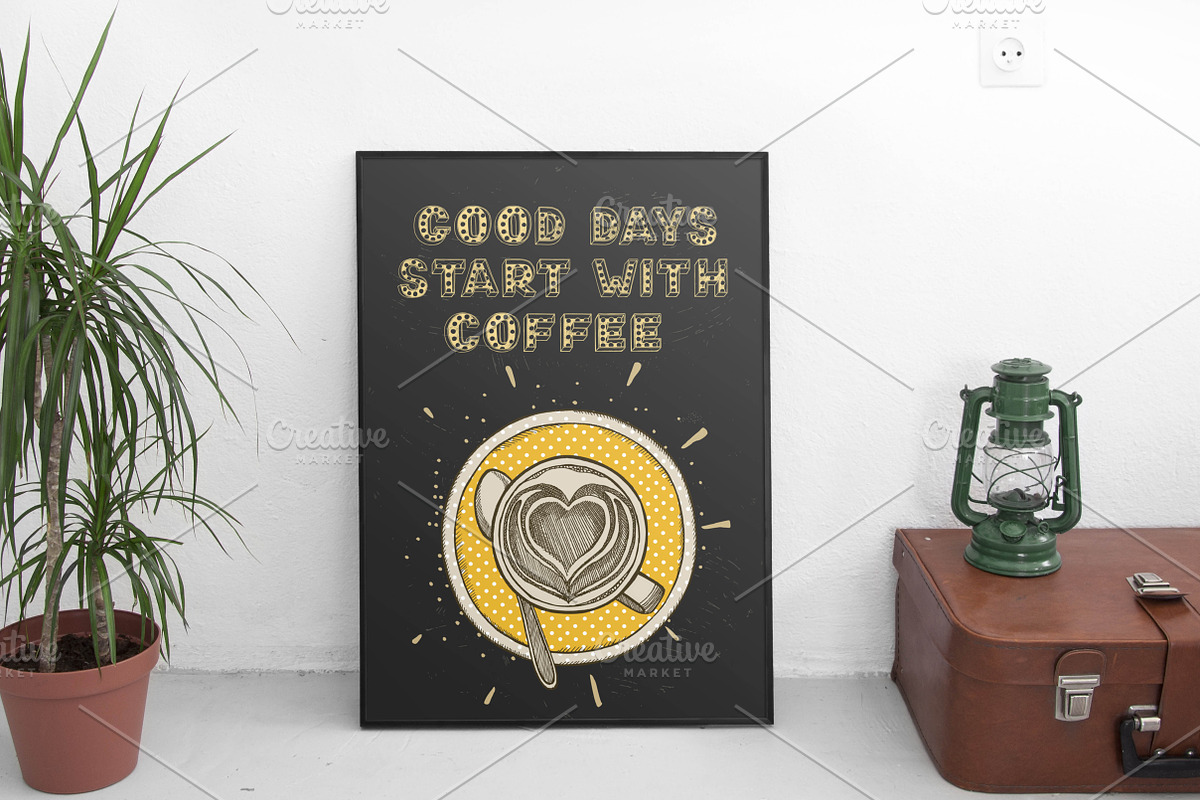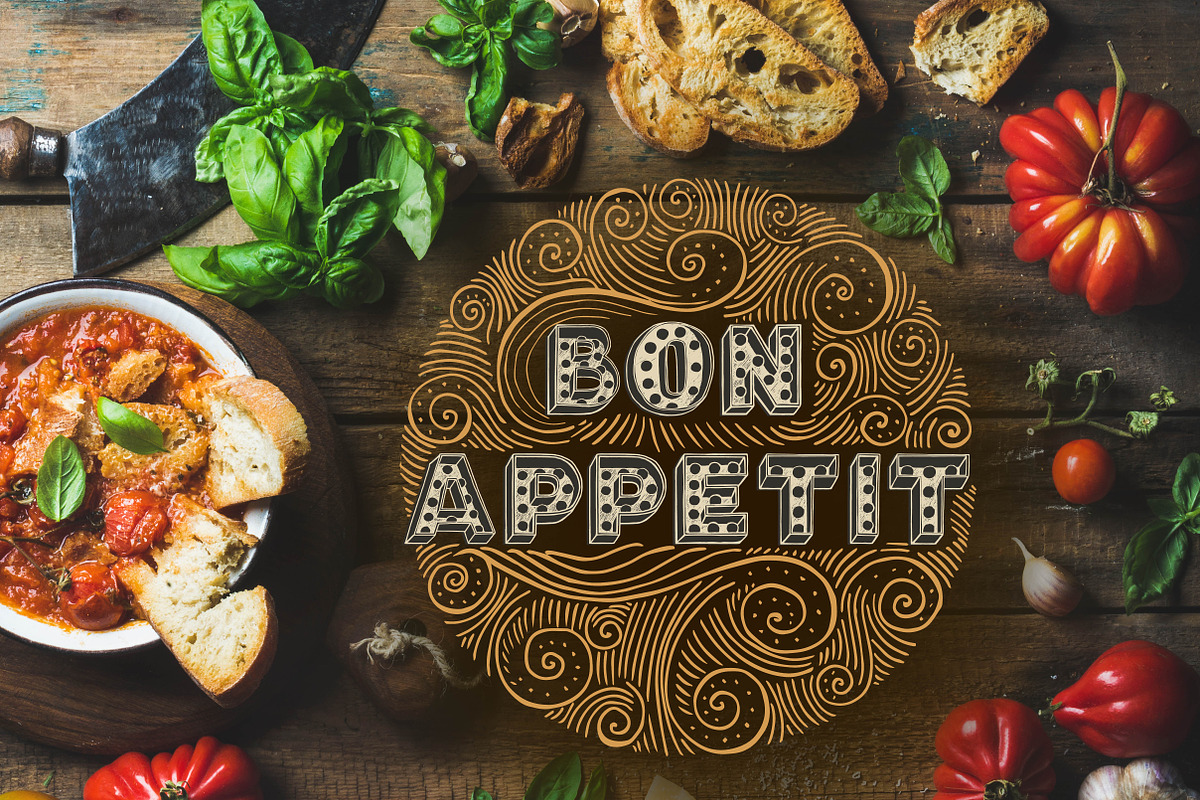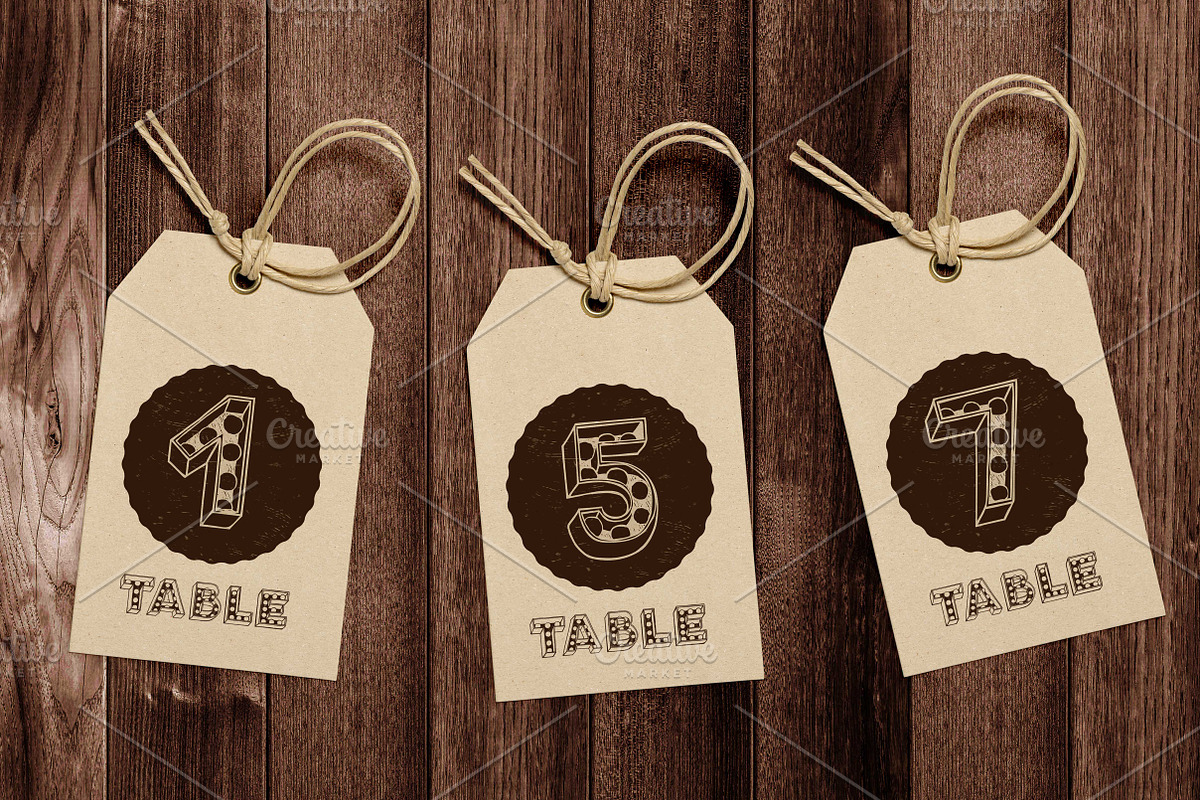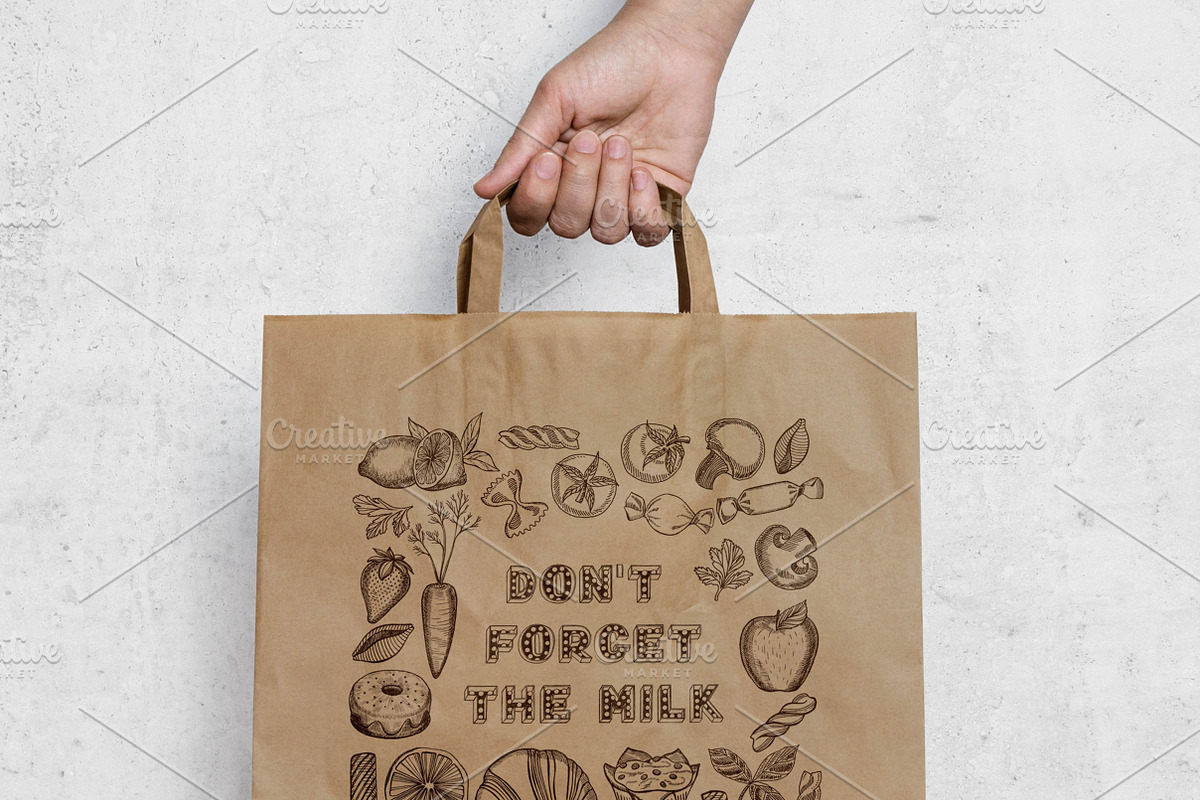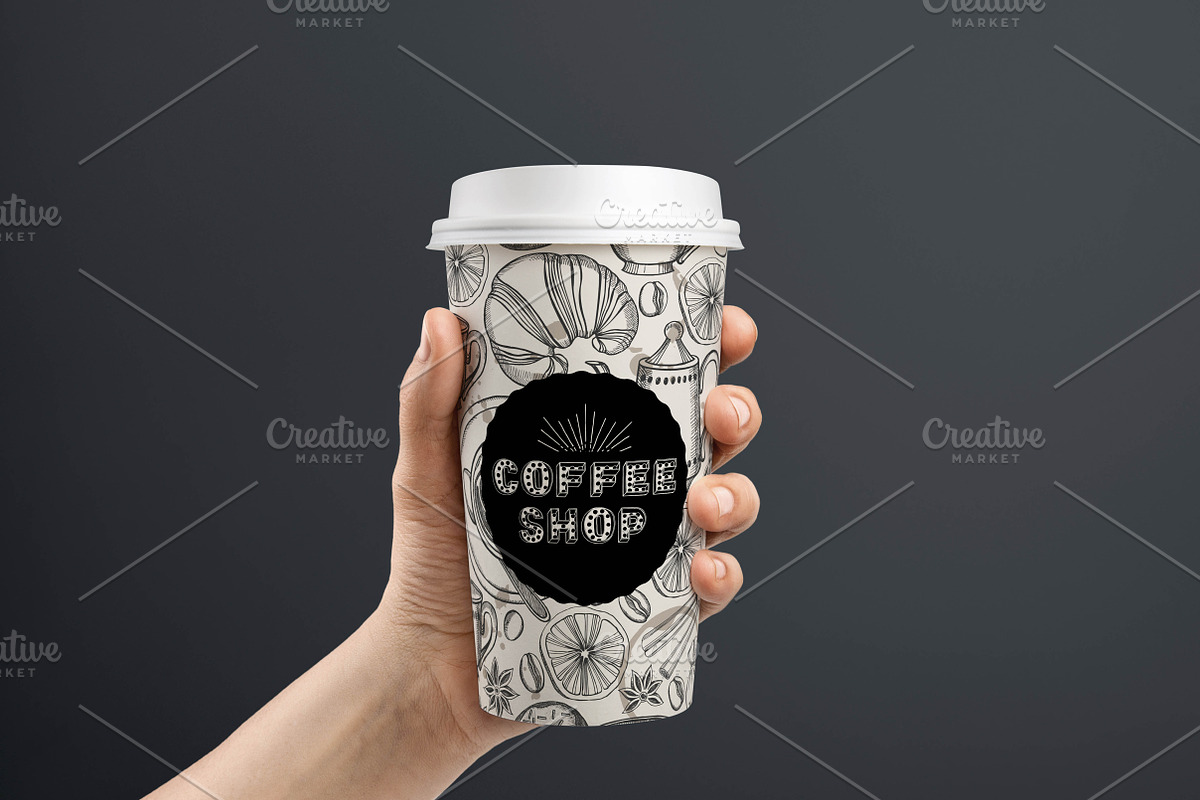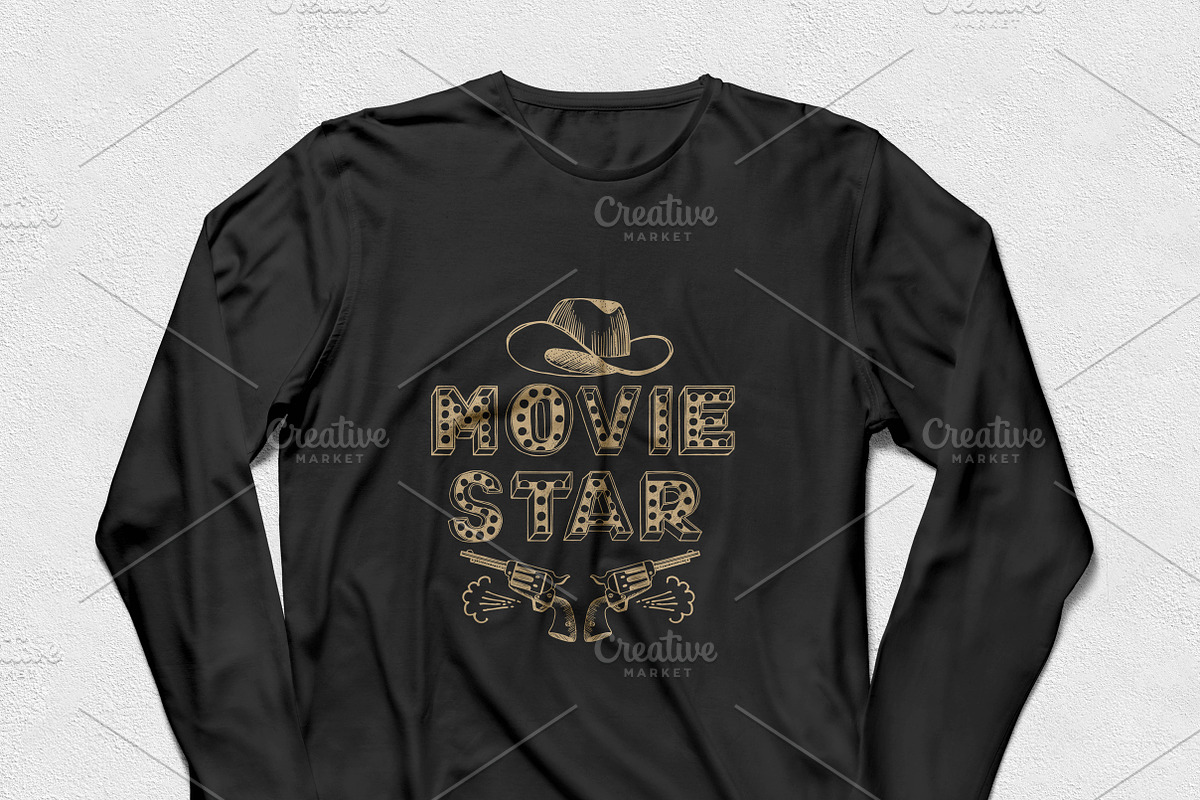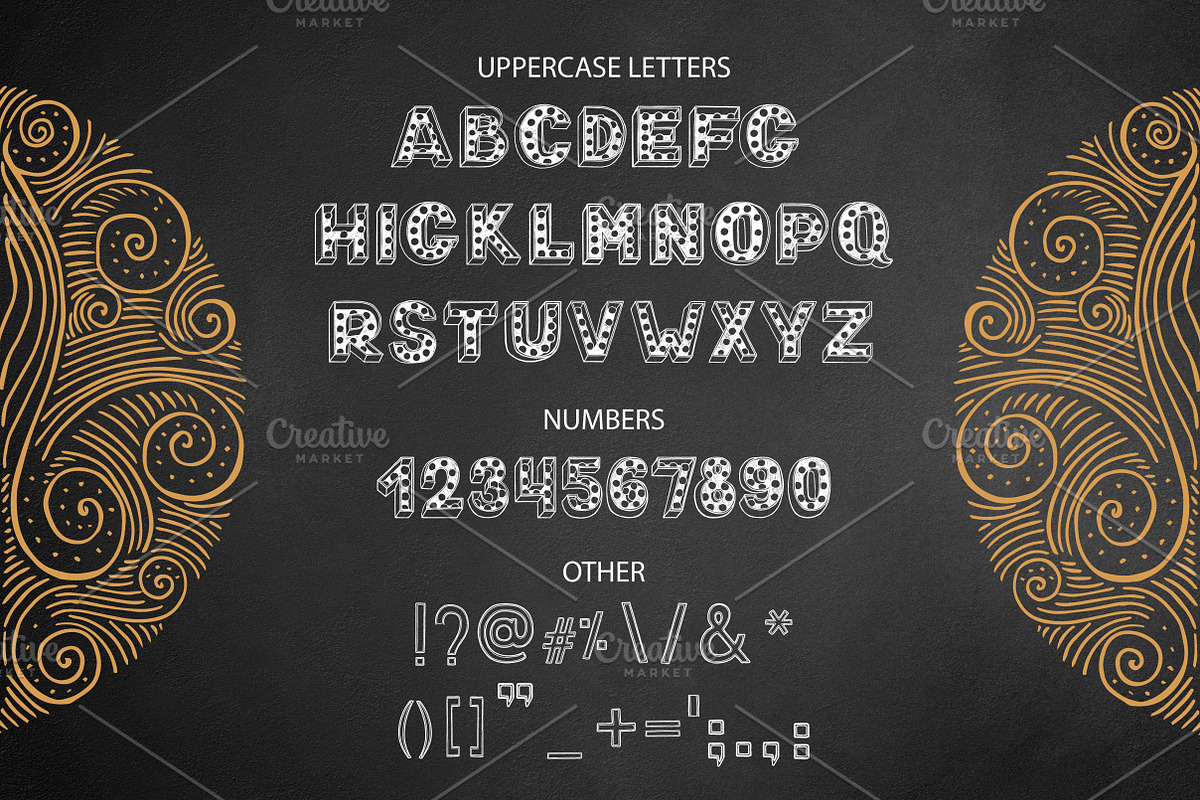
Bon Appetit Font
Bon Appetit Font by BarcelonaShop is a font selected for branding, posters, packaging, typography.
- Also this font comes with graphic doodle elements.
- Bon Appetit Font Bon Appetit - a handmade font consisting of uppercase letters, punctuation and numbers.
Why Bon Appetit Font is worth a look
Bon Appetit Font by BarcelonaShop fits naturally into Branding, posters, packaging, typography.